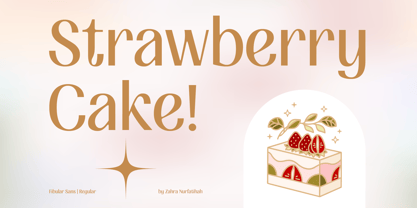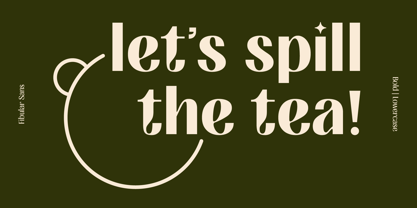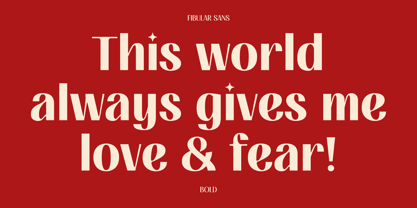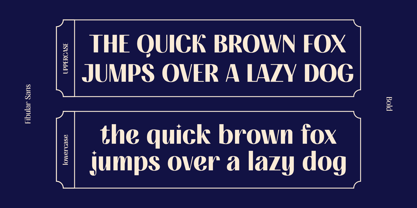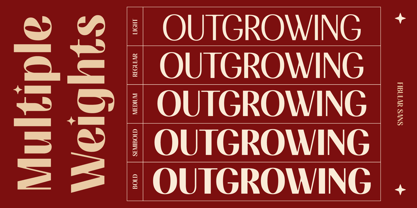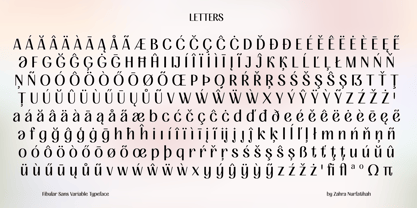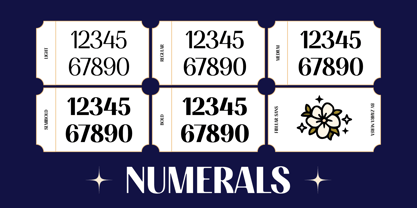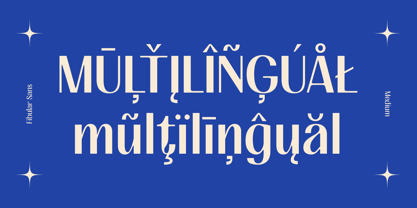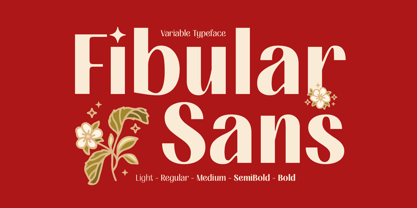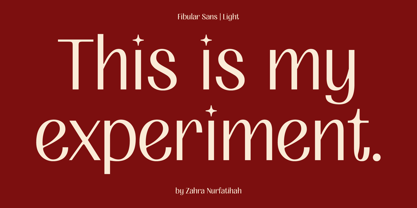
Fibular Sans
by Artflorara
The Fibular Sans Font Family was designed by Zahra Nurfatihah and published by Artflorara. Fibular Sans contains 7 styles and family package options. More about this family
Fibular Sans is a sans-serif display typeface with a versatile and distinctive personality. The proportions exude strength and elegance, inspired by the fibula bone that symbolizes resilience. Perfectly suited for headlines, posters, and bold branding, Fibular Sans commands attention with its shapes and refined details.
What truly sets Fibular Sans apart are its playful touches: star-shaped tittles on the lowercase i and j add a celestial charm, while the unique style within the lowercase f, i, and j creates a captivating twist. Subtle brackets within the characters further elevate its modern sophistication. As a variable font, Fibular Sans offers seamless versatility, allowing you to fine-tune weight and width to suit any creative project. Make a bold yet elegant statement with Fibular Sans!
Designers: Zahra Nurfatihah
Foundry: Artflorara
Artflorara is dedicated to crafting display typefaces that express beauty, clarity, and emotional depth. Originally rooted in visual art and illustration, the creativity naturally evolved into type design as a more powerful way to communicate feelings through form. Artflorara creates for designers, storytellers, anyone who value authenticity, quiet elegance, and emotional resonance.